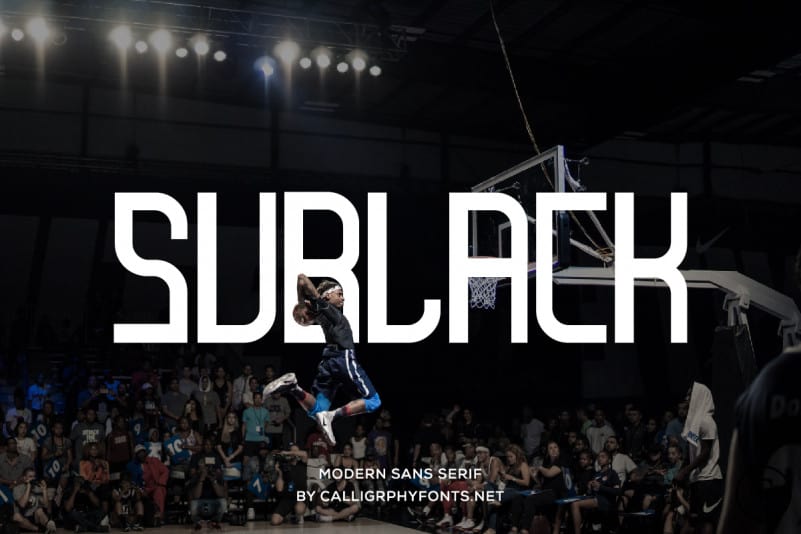
Sublack Font
Sublack Sans Serif Font
Sublack Sans Serif Font is a Display Sans Serif Font with elegant modern style. The character of the font is modern, elegant, luxury, glamour, classic and sophisticated.